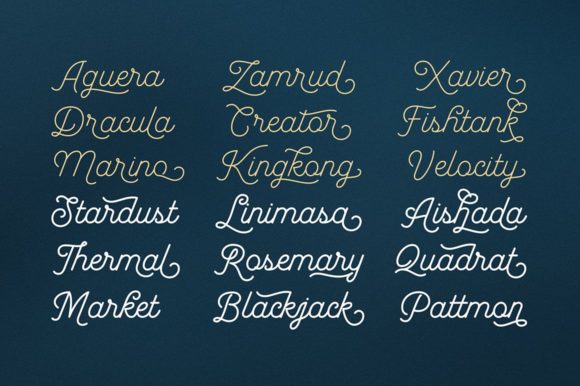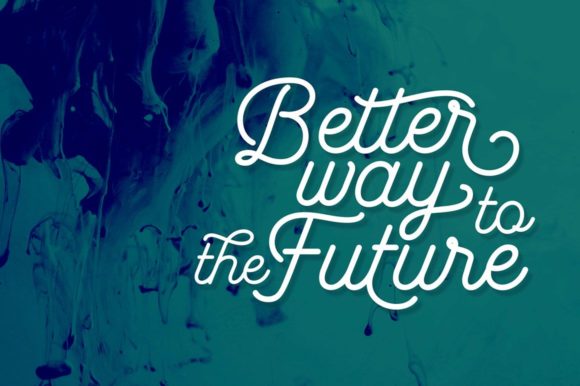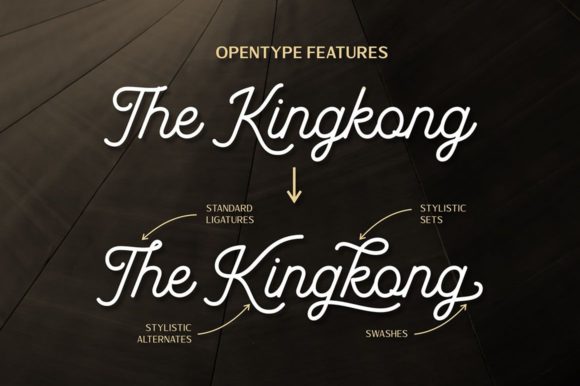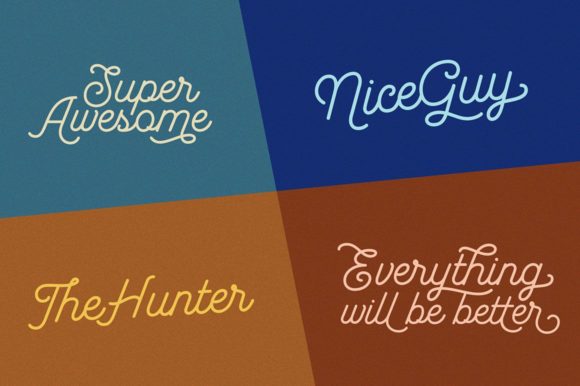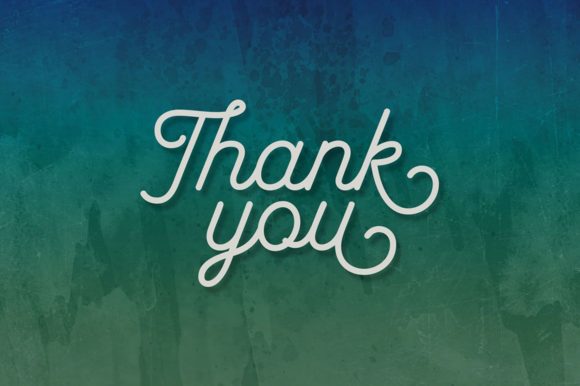
Garris Font: Elevate Your Designs with Elegance and Flair
Are you on the hunt for a font that exudes sophistication, elegance, and a touch of whimsy? Look no further than the Garris Font. This delicate, elegant, and flowing handwritten font is sure to capture the hearts of designers and crafters alike. With its beautiful and well-balanced characters, Garris is the perfect match for a wide range of designs, from modern and minimalist to vintage and ornate.
The Characteristics of Garris Font
So, what makes Garris Font so special? For starters, it features a varying baseline that adds a touch of organic flair to your designs. The smooth lines and gorgeous glyphs work together to create a sense of fluidity and movement, making your text feel more dynamic and engaging. And with stunning alternates to choose from, you can add an extra layer of creativity and personality to your work.
Why Designers and Crafters Love Garris Font
Designers and crafters love Garris Font for its versatility and flexibility. Whether you’re working on a branding project, a wedding invitation, or a craft tutorial, Garris is the perfect choice. Its elegant and refined aesthetic makes it suitable for a wide range of applications, from high-end fashion to handmade crafts.
Perfect for a Wide Range of Designs
One of the things that sets Garris Font apart is its ability to match a wide pool of designs. Whether you’re going for a modern and sleek look or a more vintage and ornate feel, Garris fits seamlessly into any aesthetic. Its delicate and flowing lines make it perfect for:
• Branding and packaging design
• Craft tutorials and patterns
• Fashion and beauty branding
• Signage and display design
How to Use Garris Font in Your Designs
Using Garris Font in your designs is easy and intuitive. Here are a few tips to get you started:
• Pair Garris with bold and modern fonts for a striking contrast
• Use Garris as a headline font to add a touch of elegance and sophistication
• Experiment with different alternates and glyphs to add personality and flair
• Combine Garris with watercolor or hand-drawn elements for a unique and eye-catching look
The Benefits of Using Garris Font
So, what are the benefits of using Garris Font in your designs? Here are just a few:
• Adds a touch of elegance and sophistication to your designs
• Perfect for a wide range of applications and aesthetics
• Features a unique and eye-catching aesthetic
• Easily pairs with other fonts and design elements
• Great for branding, marketing, and advertising materials
In conclusion, Garris Font is a beautiful and versatile font that is sure to elevate your designs to the next level. With its delicate and flowing lines, gorgeous glyphs, and stunning alternates, Garris is the perfect choice for designers and crafters looking to add a touch of elegance and sophistication to their work. So why wait? Add Garris Font to your design toolkit today and watch your creations come alive!